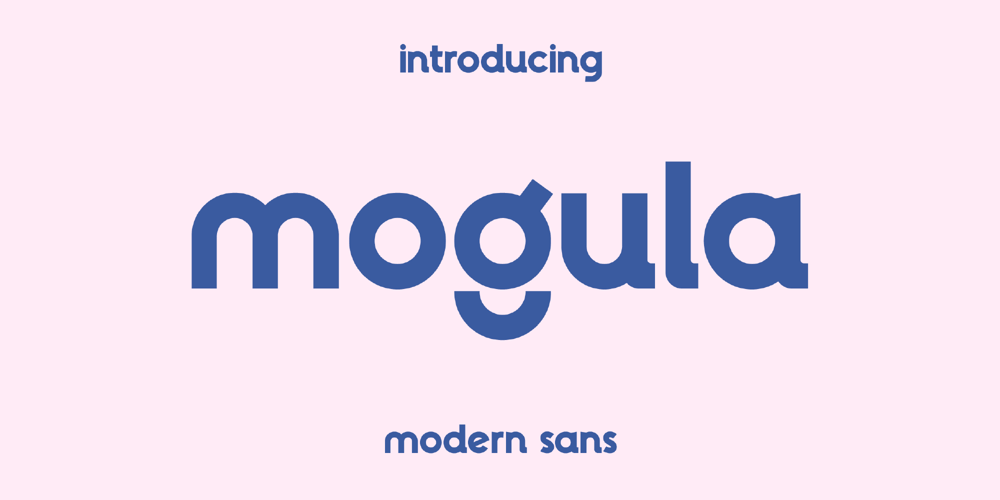
Mogula
Mogula font
Mogula Font Family was designed by Heru Utama Putra and published by Letterena Studios. Mogula contains 2 styles and family package options. A serif modern and classic typeface that has its own unique style & modern look.This typeface is perfect for an elegant & luxury logo, book or movie title design, fashion brand, magazine, clothes, lettering, quotes, and so much more.